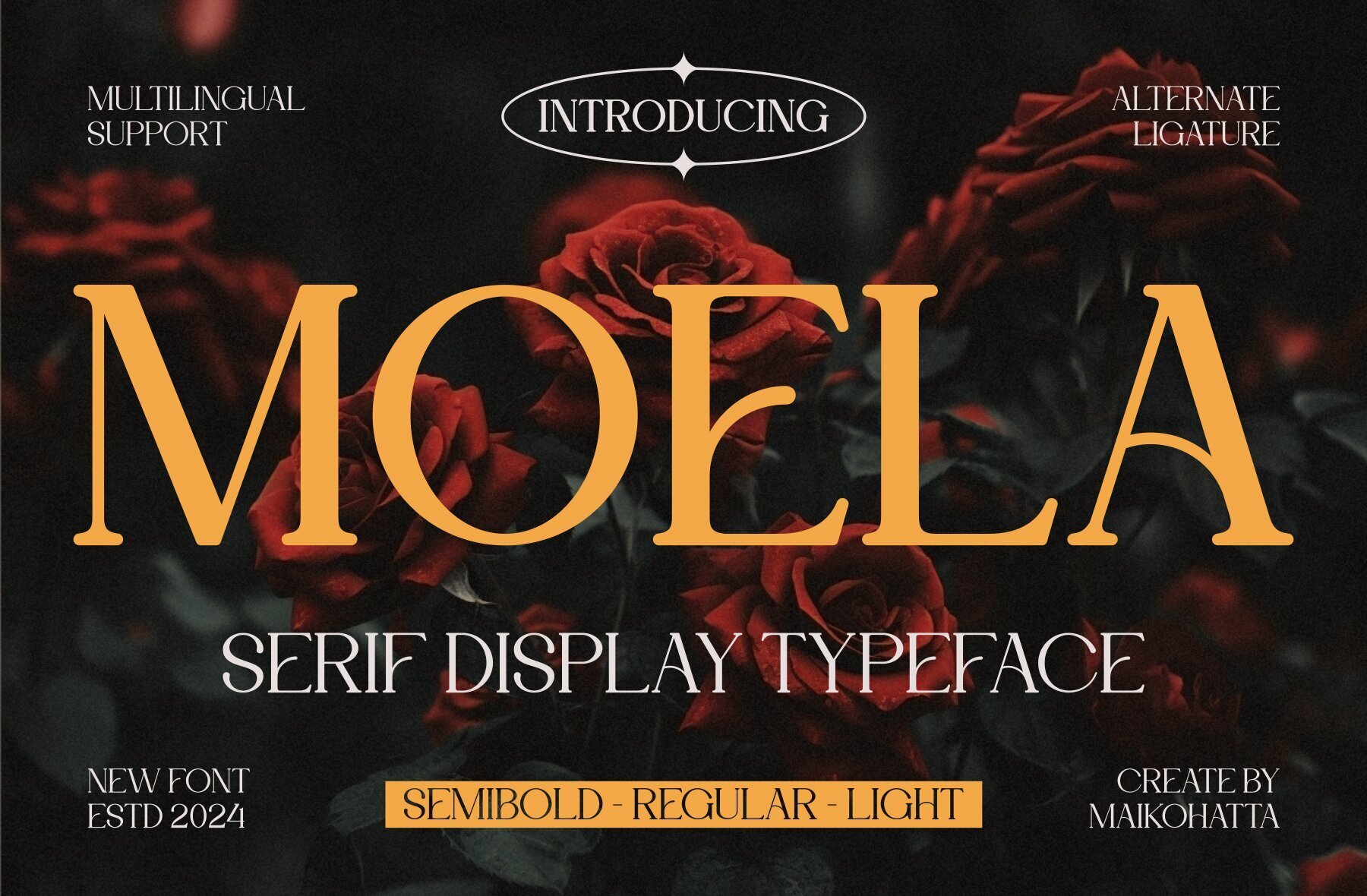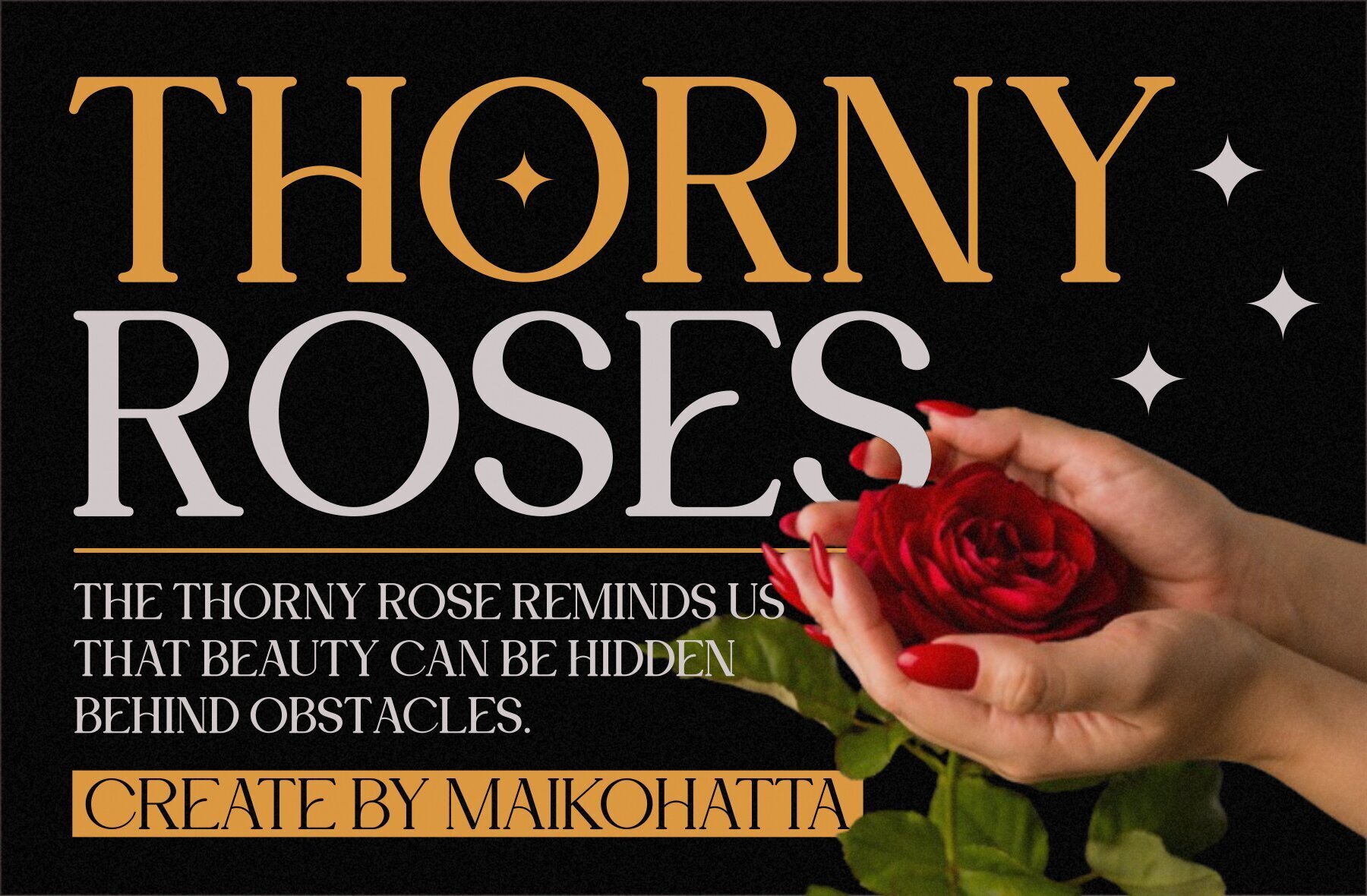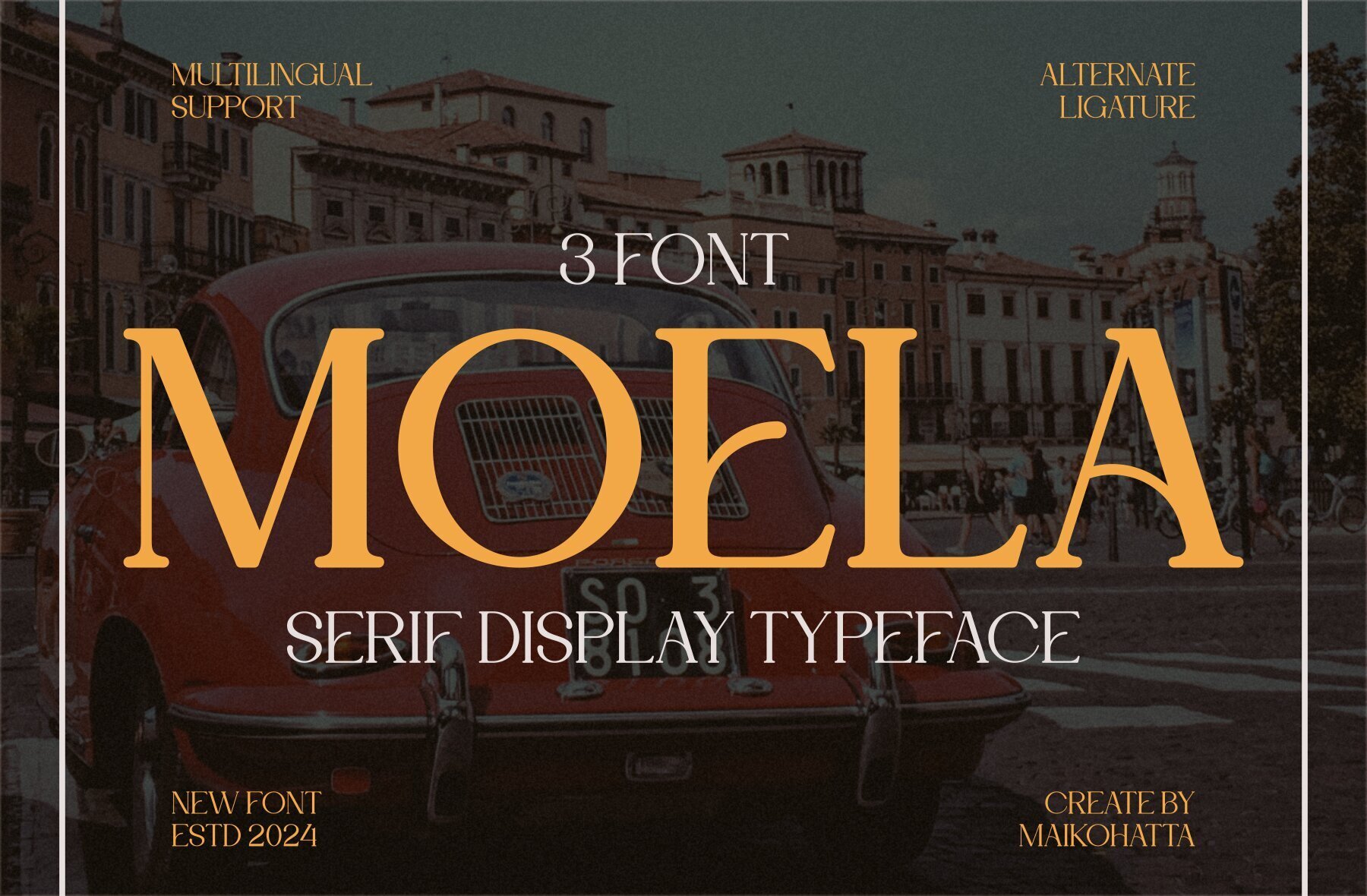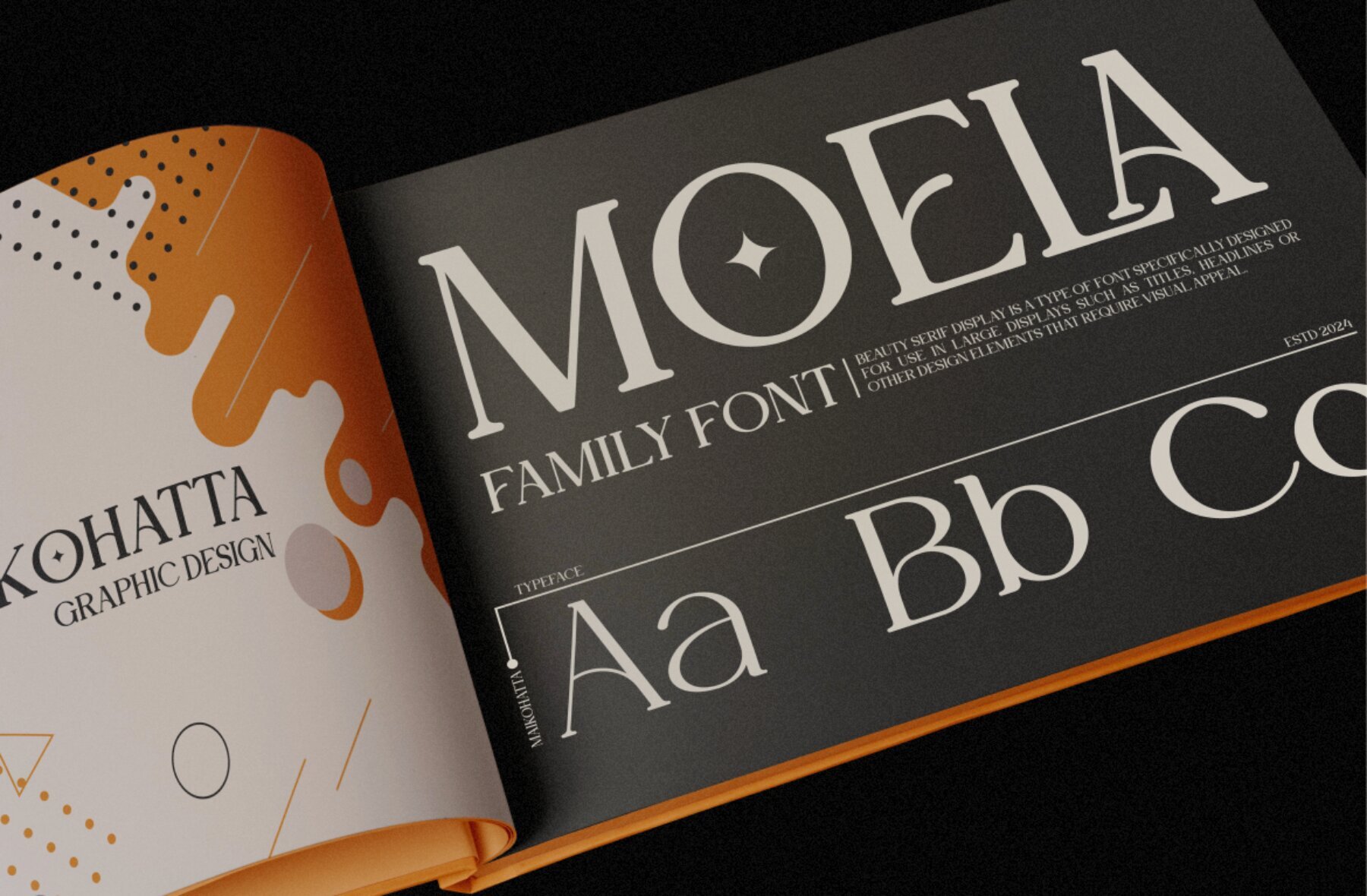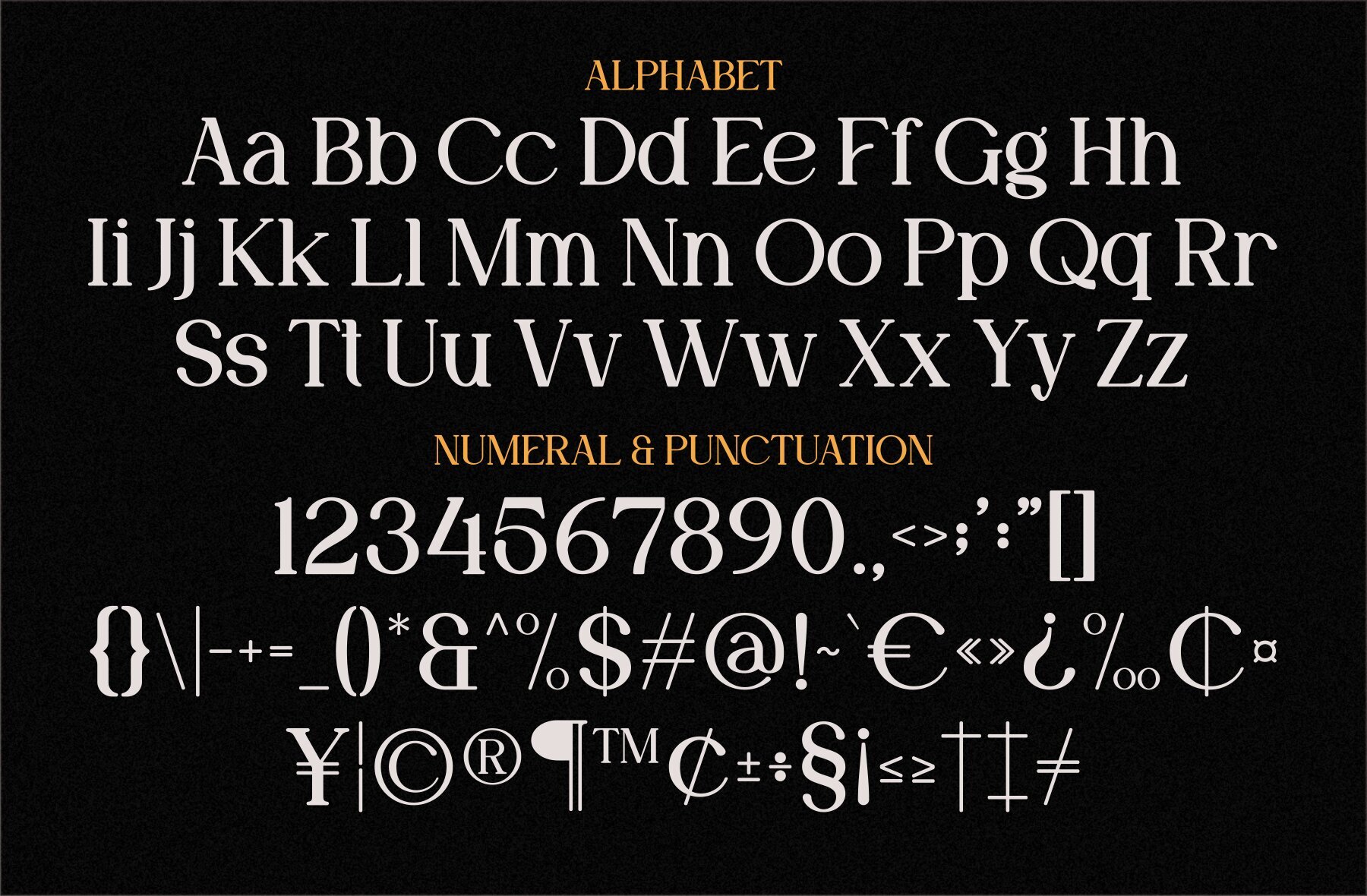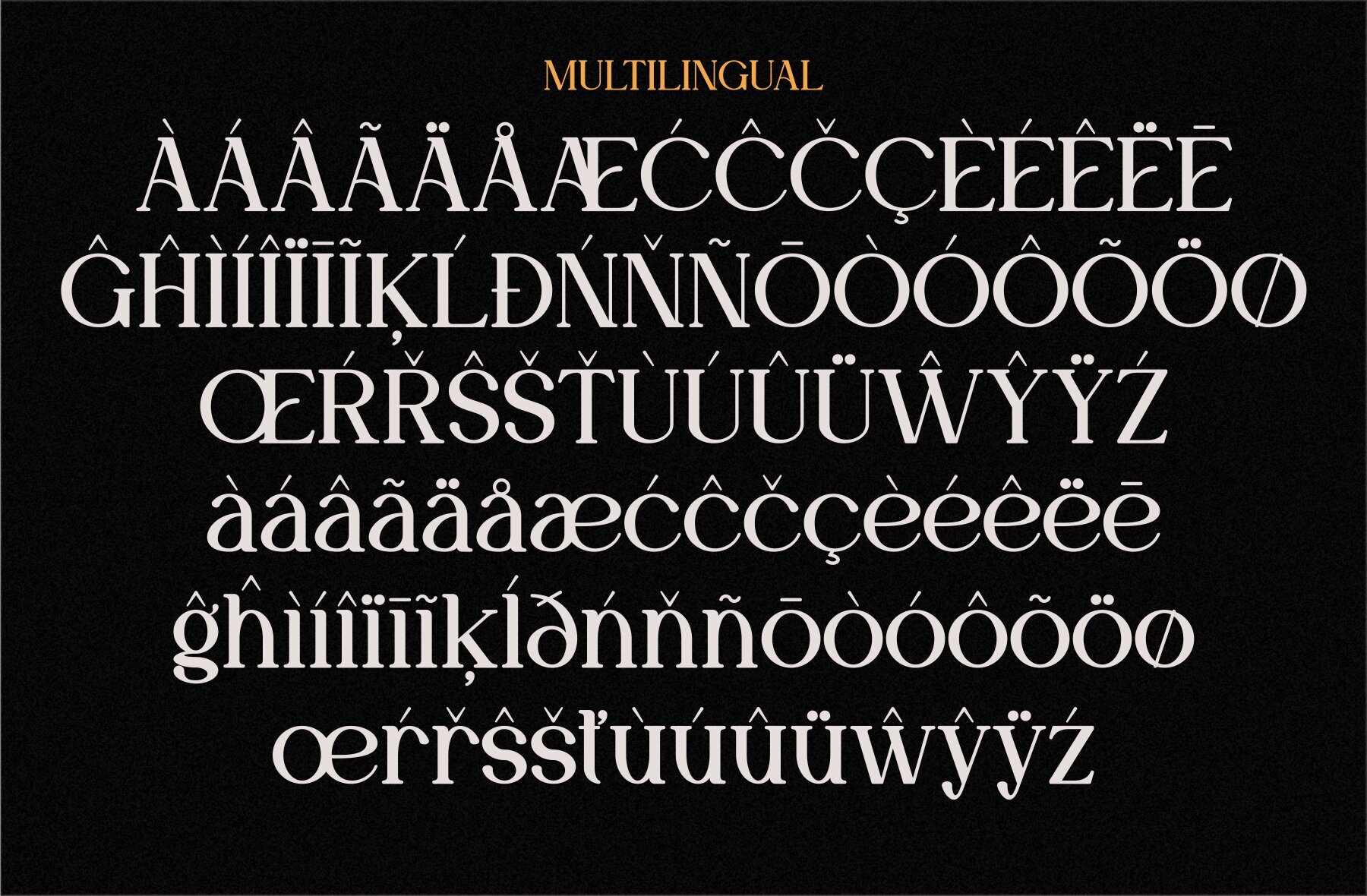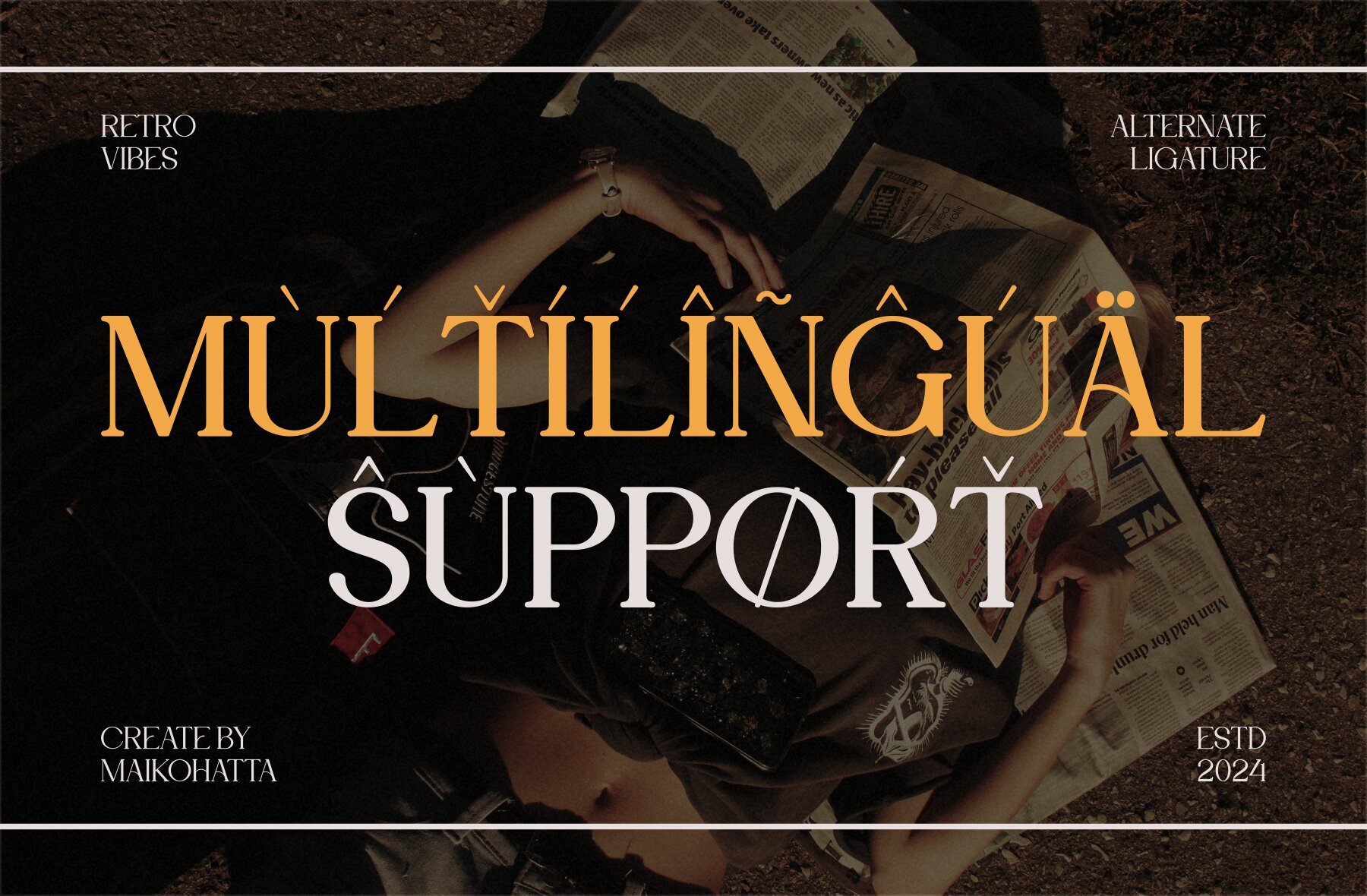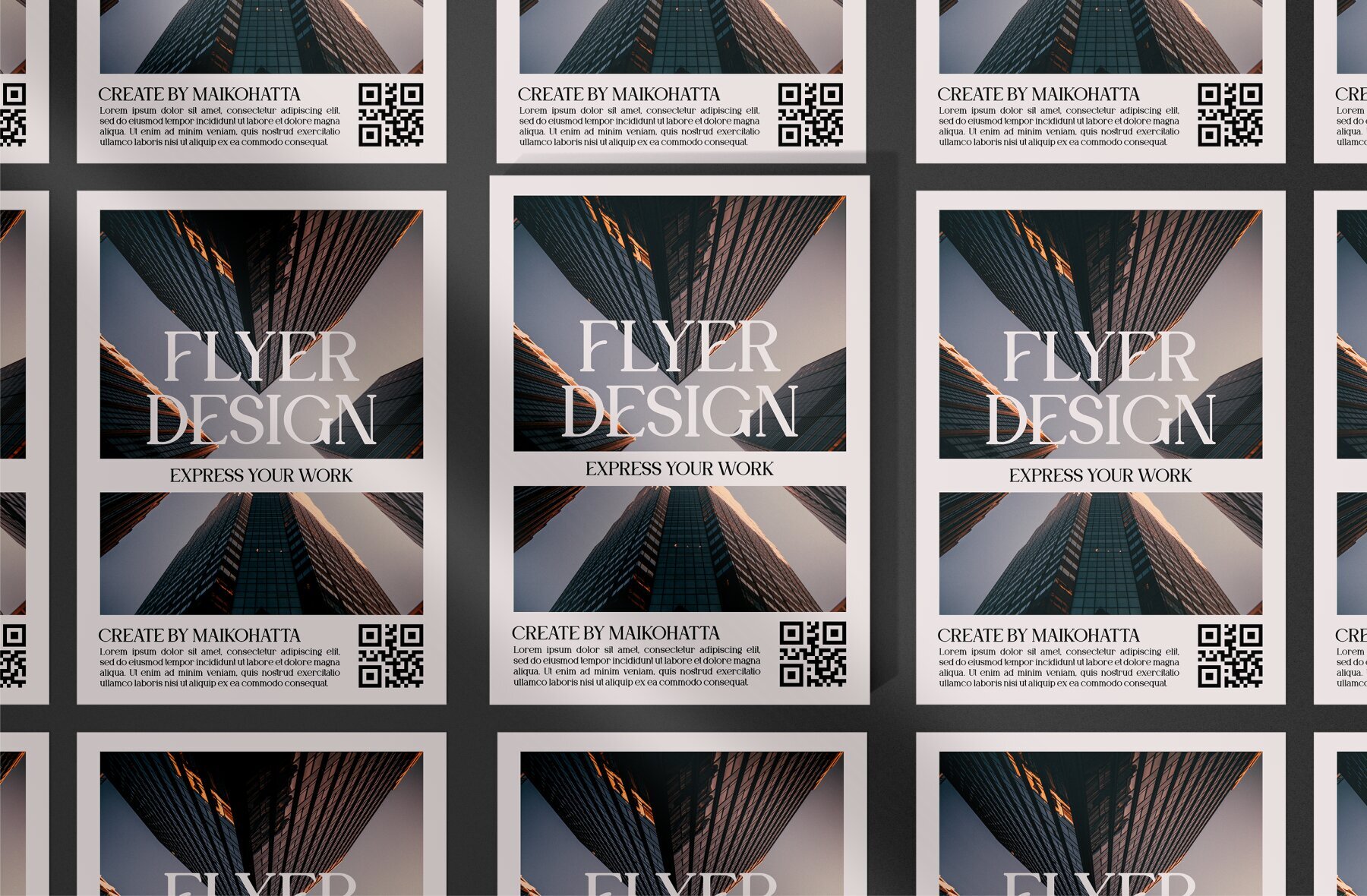
Moela Font
This serif font exudes elegance and sophistication, making it an excellent choice for high-end branding, editorial design, book covers, and magazine layouts. Its classic and refined look offers high legibility, perfect for creating luxurious and stylish visual presentations.